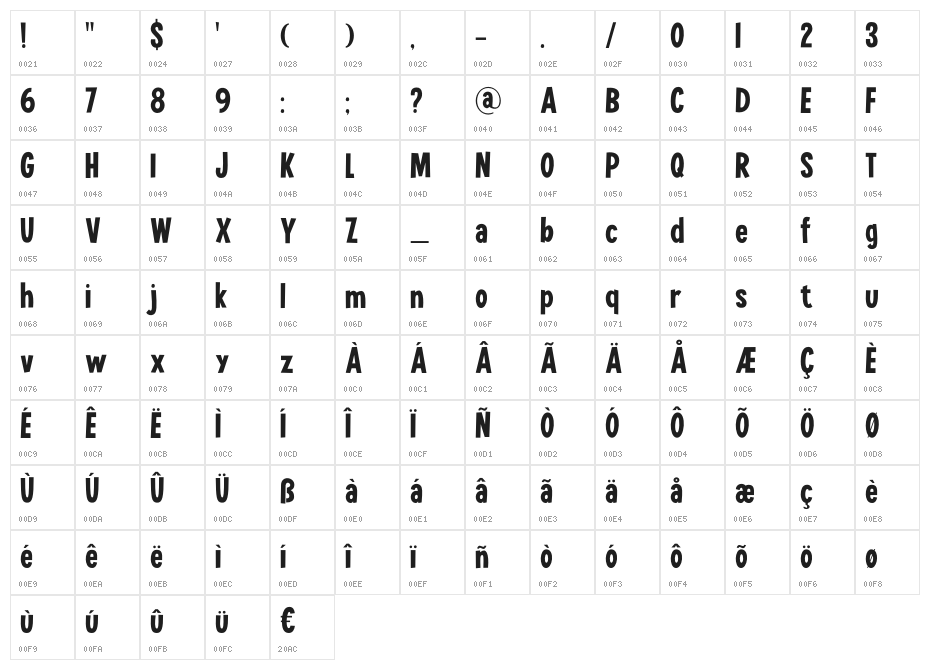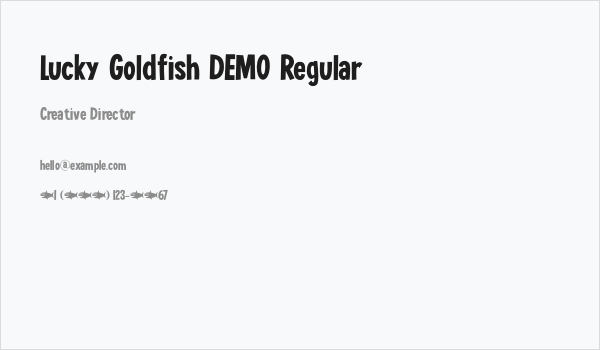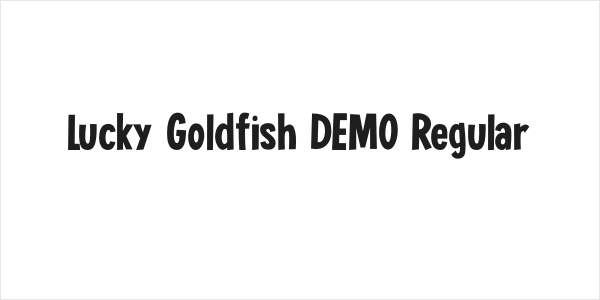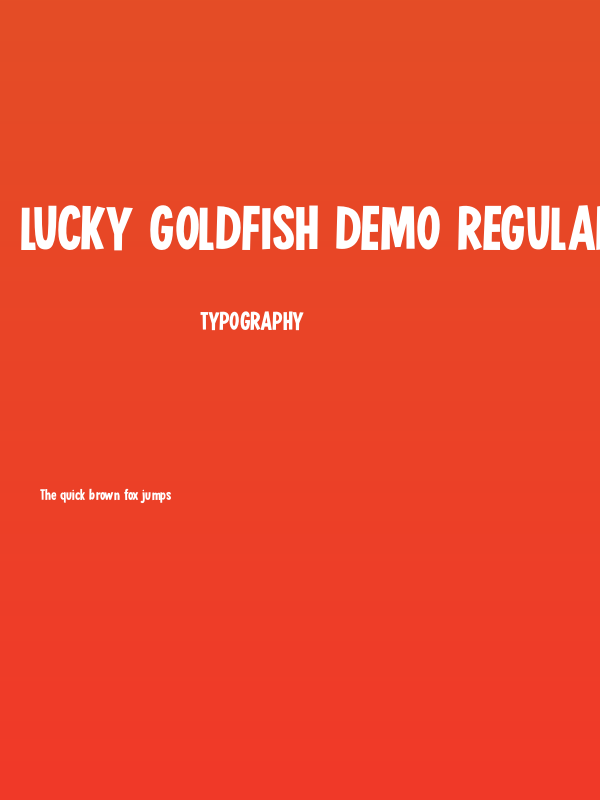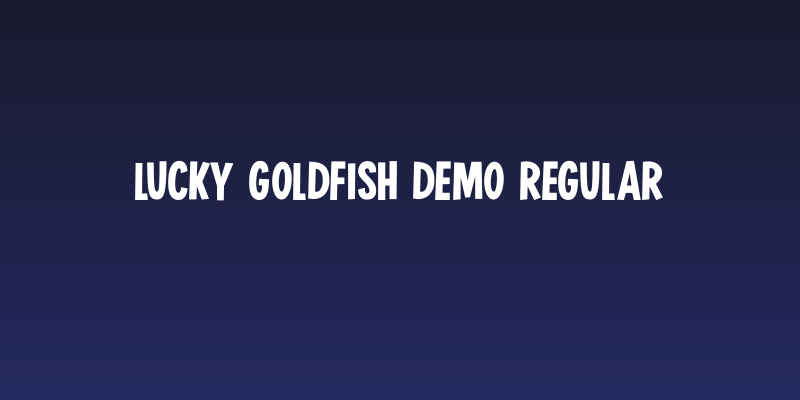
Lucky Goldfish DEMO Regular Font
Lucky Goldfish DEMO Regular Description
This playful and bold font features a whimsical design with a strong presence. The uppercase letters are tall and slightly condensed, giving a sense of energy and movement. The lowercase letters maintain a consistent style, with rounded edges that add a friendly touch. The numbers are bold and easy to read, while the inclusion of fish-shaped characters adds a unique and humorous element. The special characters are well-integrated, maintaining the overall playful theme. This font is perfect for projects that require a fun and engaging look.
| Proposed Projects | Ideal for children's books, playful branding, event posters, and creative packaging. |